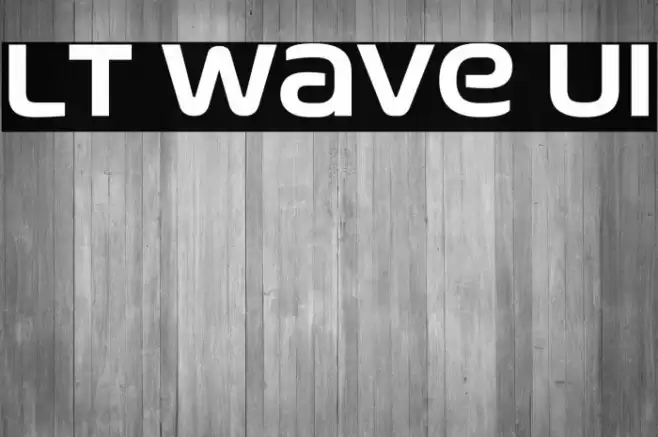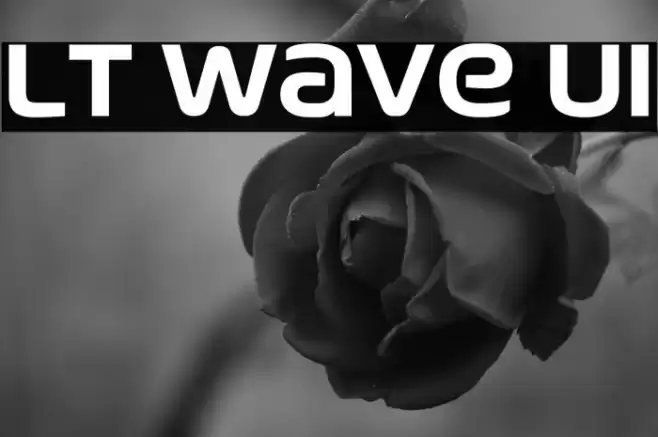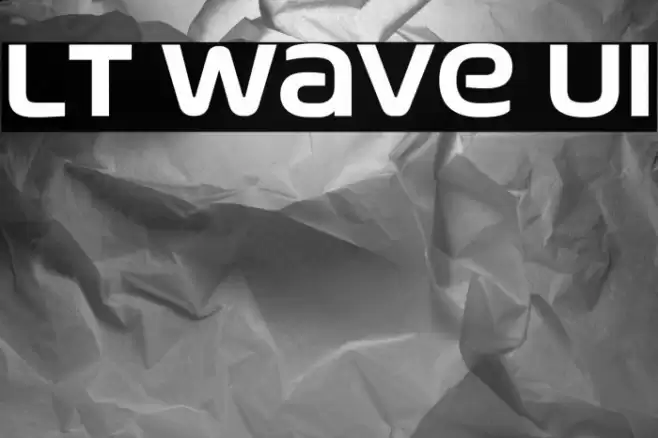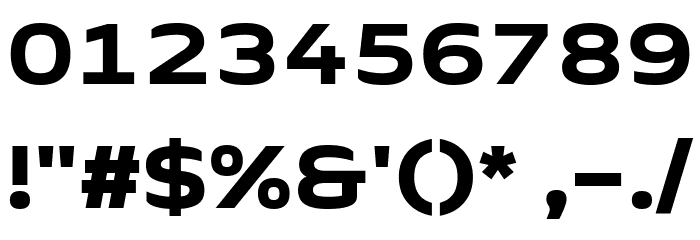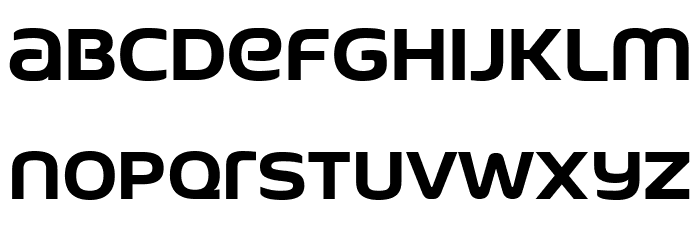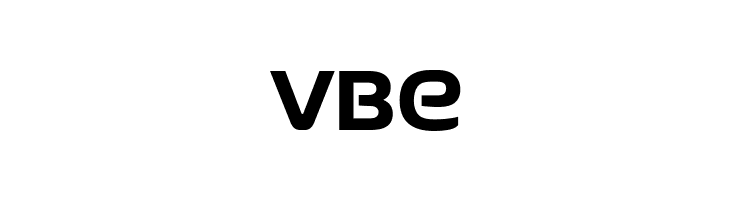
LT Wave UI Font
LT Wave UI Description
This font features a modern, sleek design with smooth, rounded edges and a geometric structure. The characters are uniform in width, providing a clean and cohesive appearance. The uppercase and lowercase letters maintain a consistent style, with a slight curvature that adds a touch of softness to the overall look. The numerals are bold and easily distinguishable, making them suitable for various applications. Special characters are well-integrated, maintaining the font's overall aesthetic. The font's design is versatile, making it suitable for both digital and print media.
A modern, geometric font with smooth, rounded edges and uniform width from Regular fonts.
- Proposed Projects: Ideal for user interfaces, branding, advertising, and digital media projects.